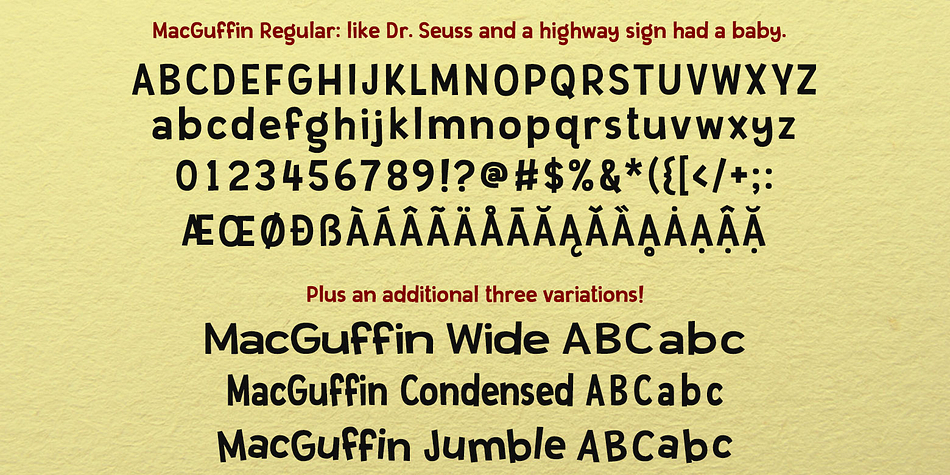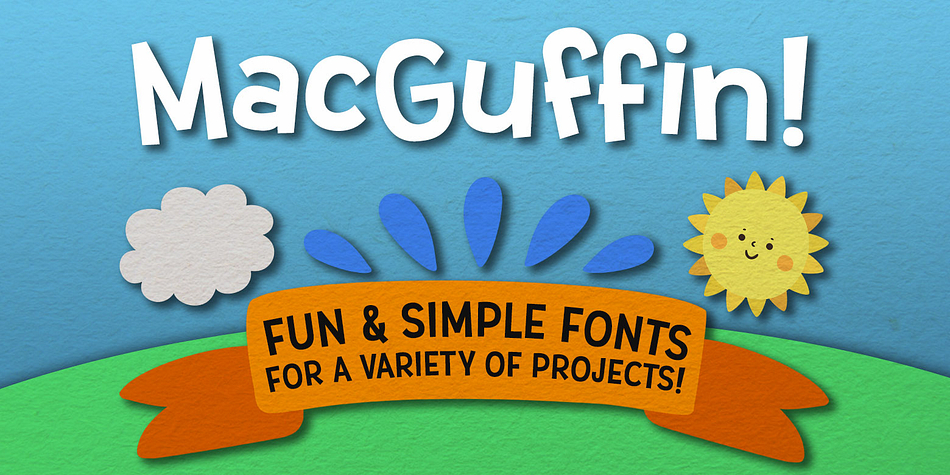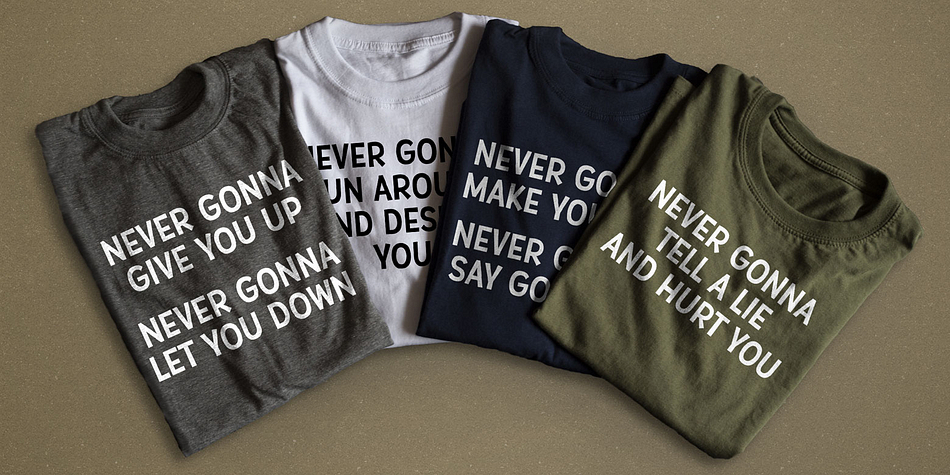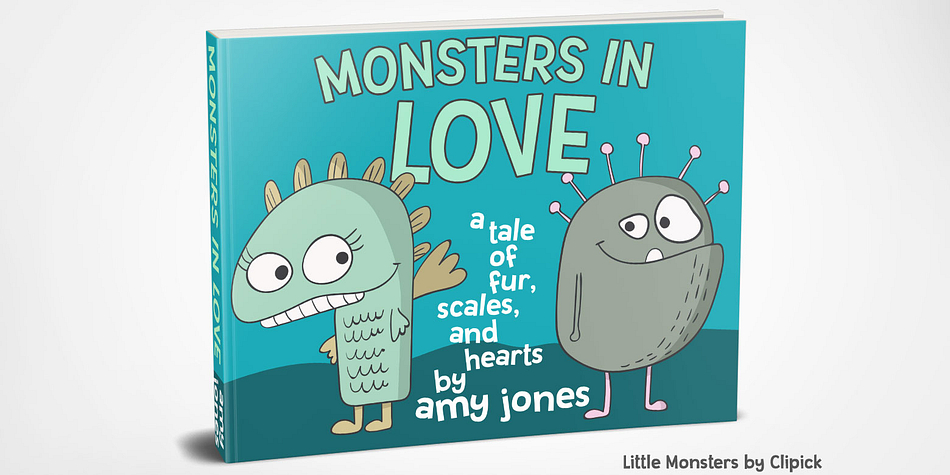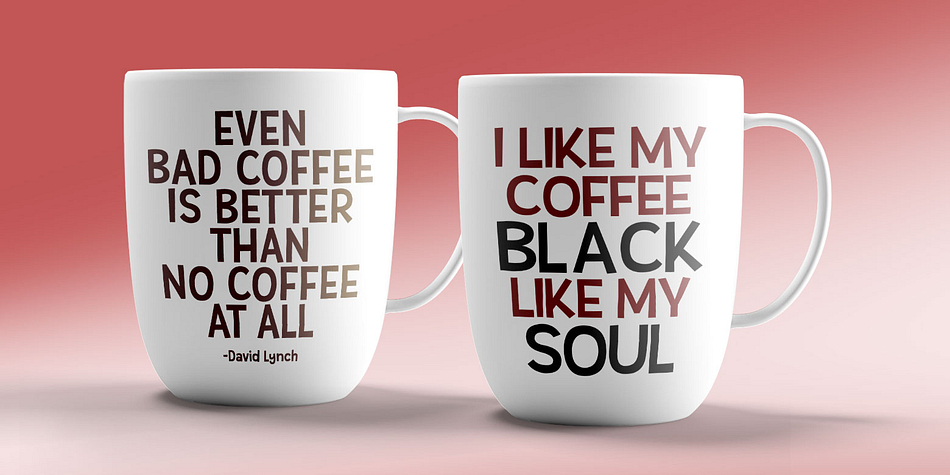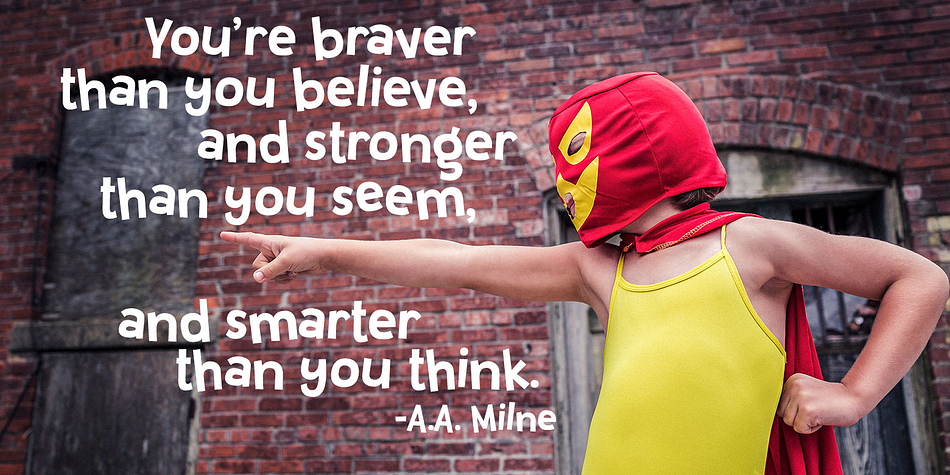
Designed by Missy Meyer, MacGuffin is a hand drawn and kids font family. This typeface has four styles and was published by Missy Meyer.
Simple, clean, and fun—MacGuffin is like if Dr. Seuss and a highway sign got put in a blender and came out in font form.
The letters are all crisp, sharp, and smooth; perfect for any crafting project, logo, sign, or anything else you can think of!
The base fonts in the family (MacGuffin, MacGuffin Wide and MacGuffin Condensed) all have over 500 characters, including tons of extended options for Latin languages. And for fun, I’ve also created MacGuffin Jumble, with the regular-width letters set at fun and quirky angles. (Of course, you could jumble any of these fonts on your own. But this is a pre-jumbled timesaver!)
- Uppercase A-Z
- Lowercase a-z
- Standard punctuation
- Accented characters for language support (400+ in Regular, Condensed, and Wide; Latin-1 Supplement characters in Jumble)
- Jumble contains 30 additional double-letter ligatures